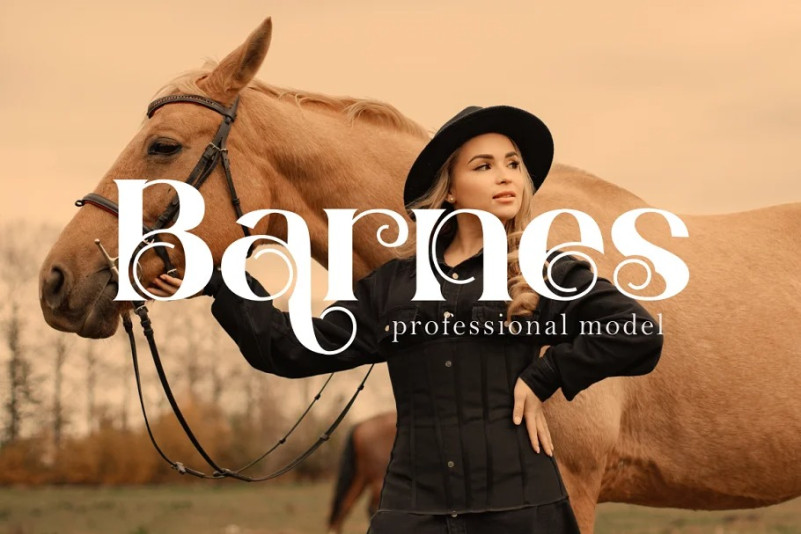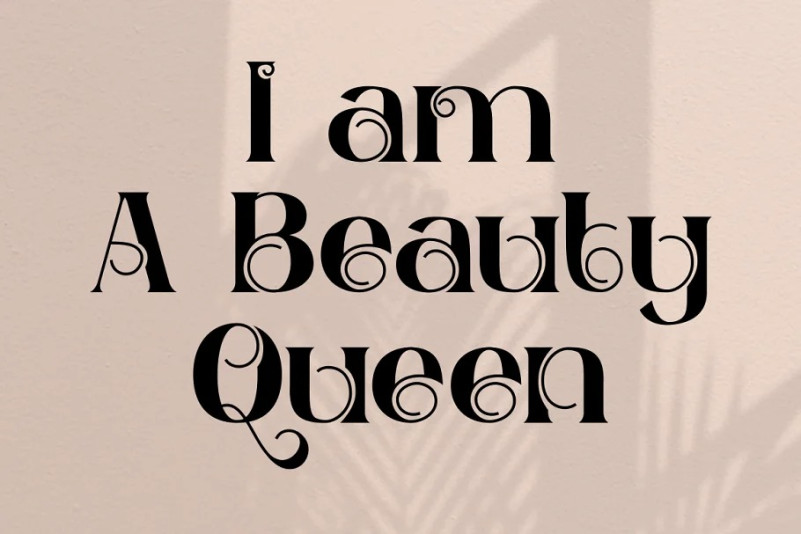
Layla Font
Layla Serif Font is a modern serif with lots of decorative alternatives that allows you to design expressive logos or titles for all types of your projects. With a total of 534 glyphs with 359 alternate, you can make great display combinations for lettering with a lot of options. Come with open type feature ( a lot of alternates and end swash), its help you to make great lettering. Layla font is also support multi language. Layla best uses for Logotype, heading,cover, poster, logos, quotes, product packaging, header, merchandise, social media & greeting cards and many more.